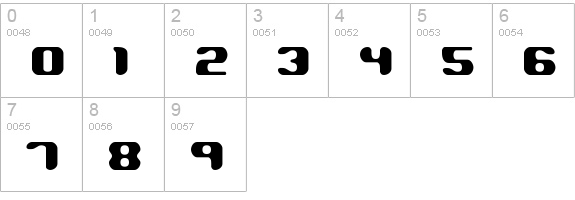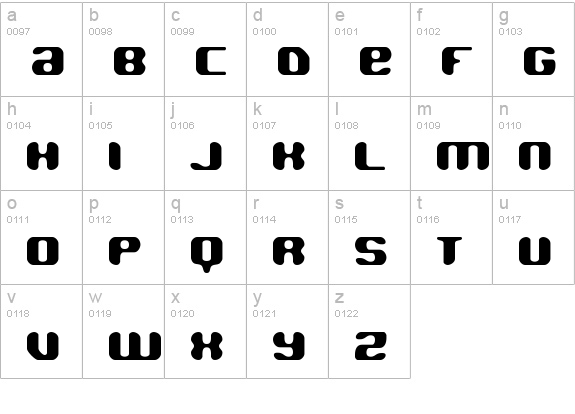
Jawbreaker BRK Font Details
Jawbreaker BRK font is a bold and eye-catching typeface that exudes a playful and modern vibe. With its chunky letters and unique design, this font is perfect for making a statement in your designs. Whether you're creating posters, logos, or social media graphics, Jawbreaker BRK font will add a touch of fun and creativity. What's even better is that Jawbreaker BRK font is free to download at FontsMarket.com. You can easily access this stylish font and enhance your projects without any cost. So why wait? Download Jawbreaker BRK font now and bring your designs to life with its captivating charm.